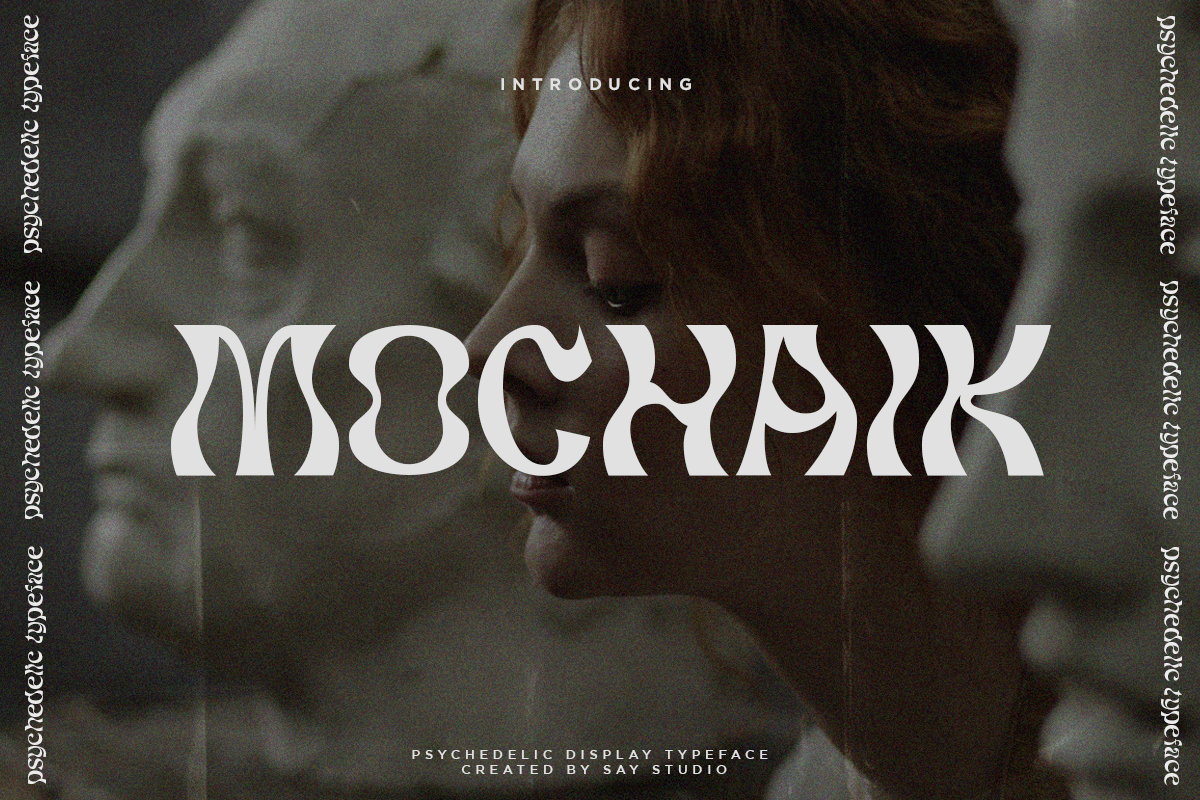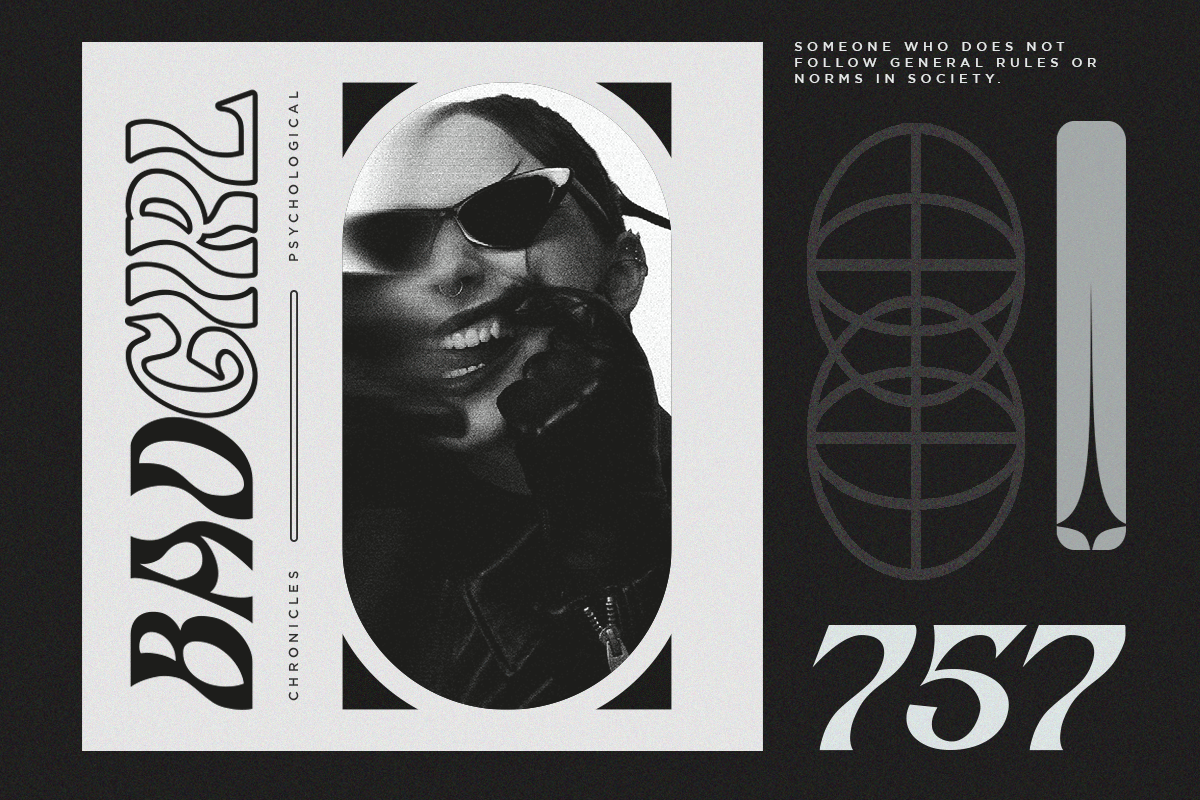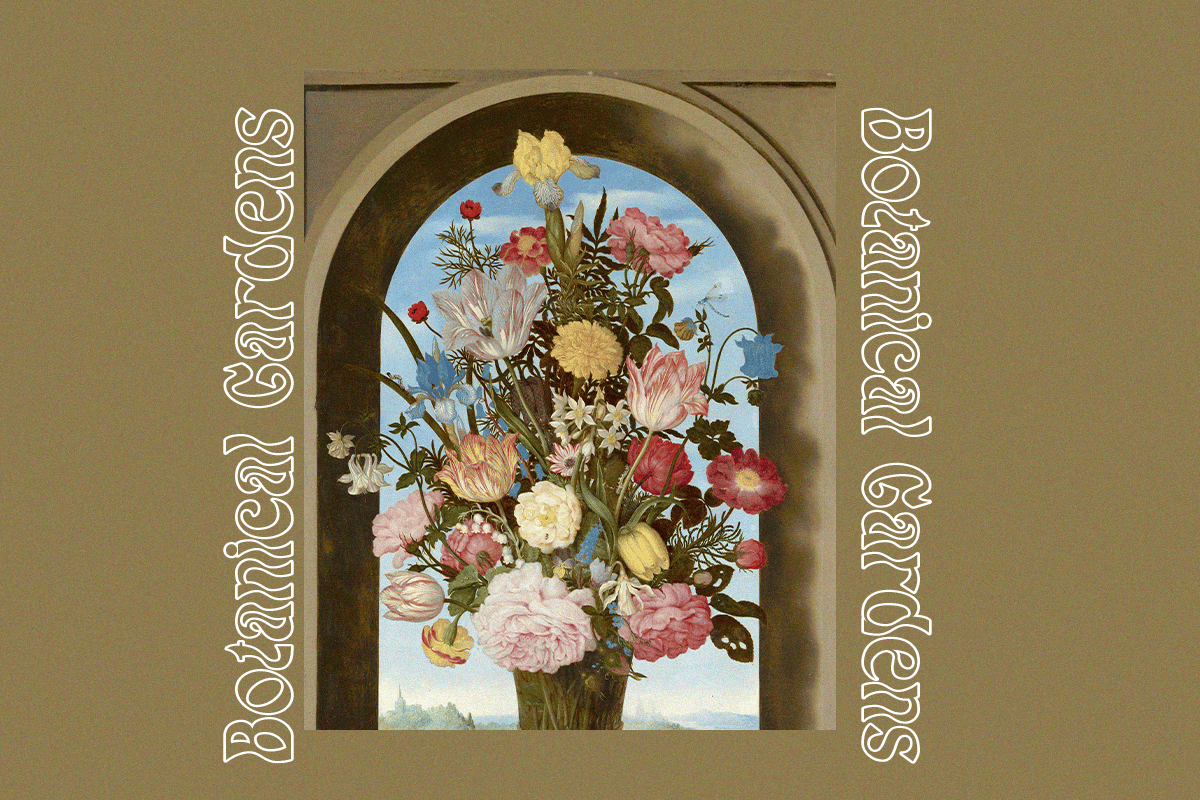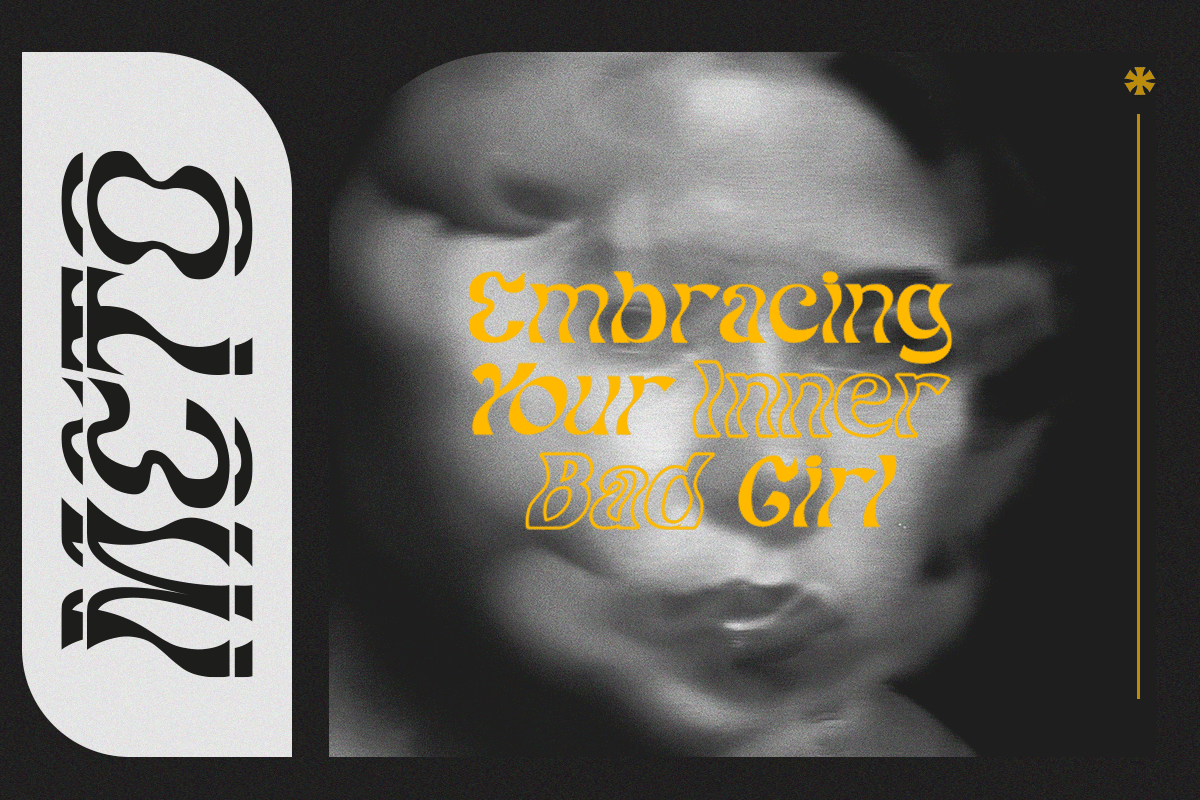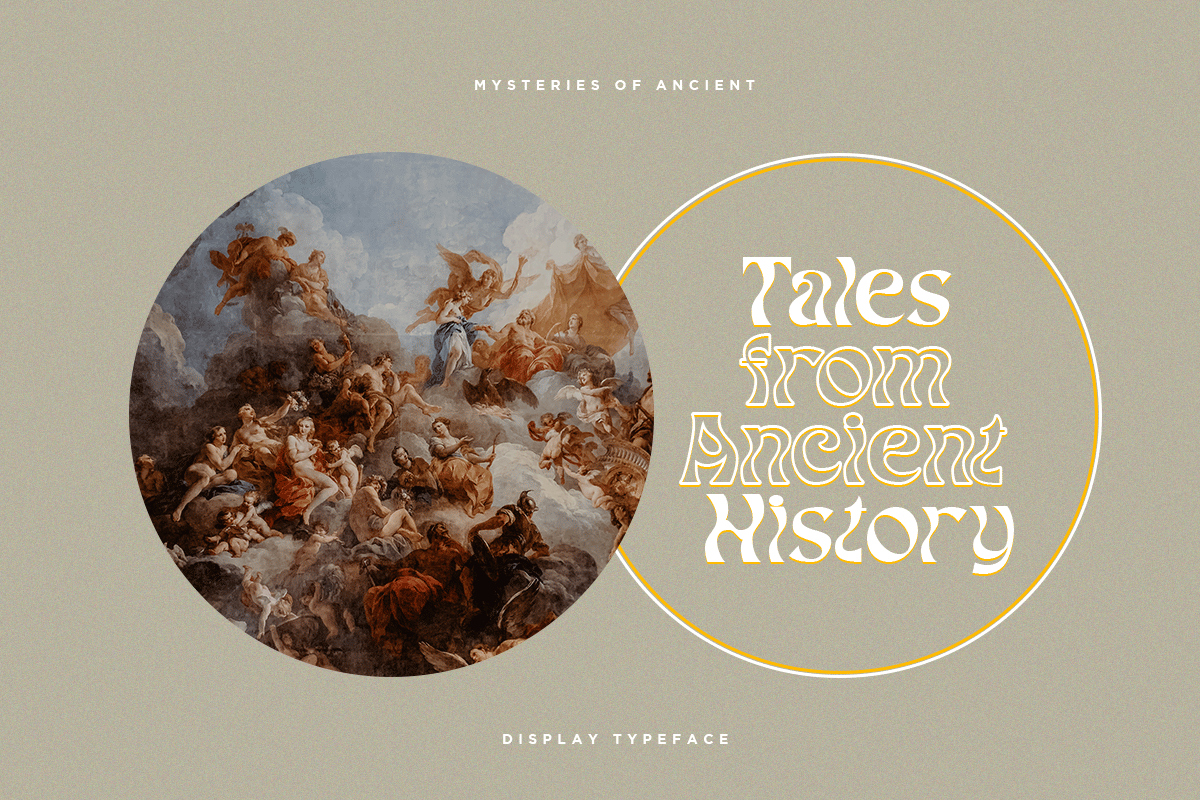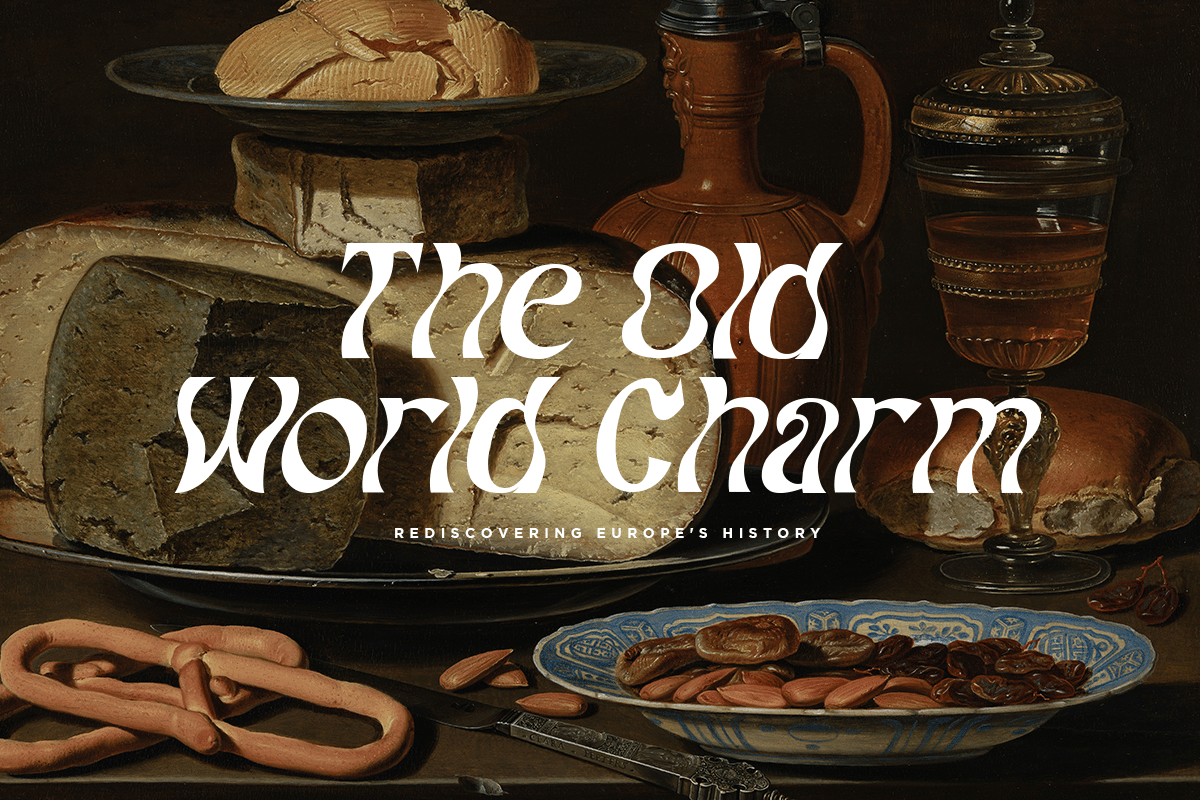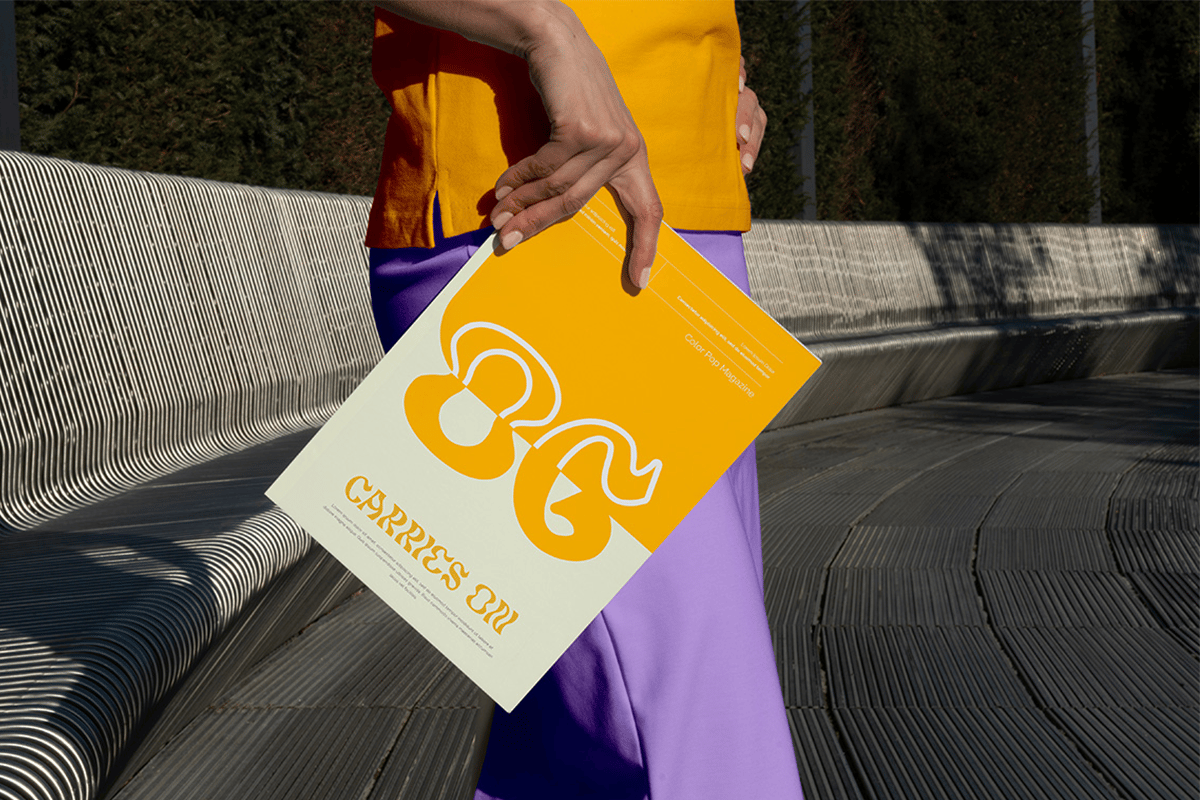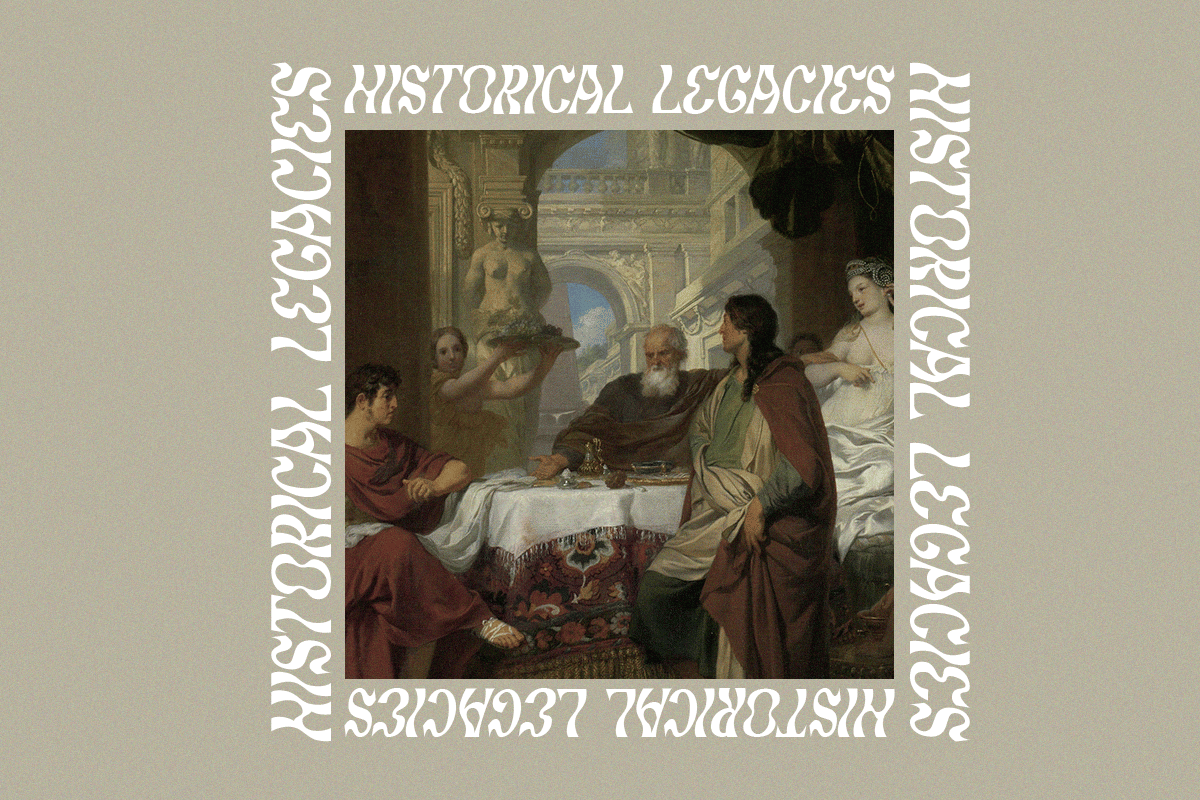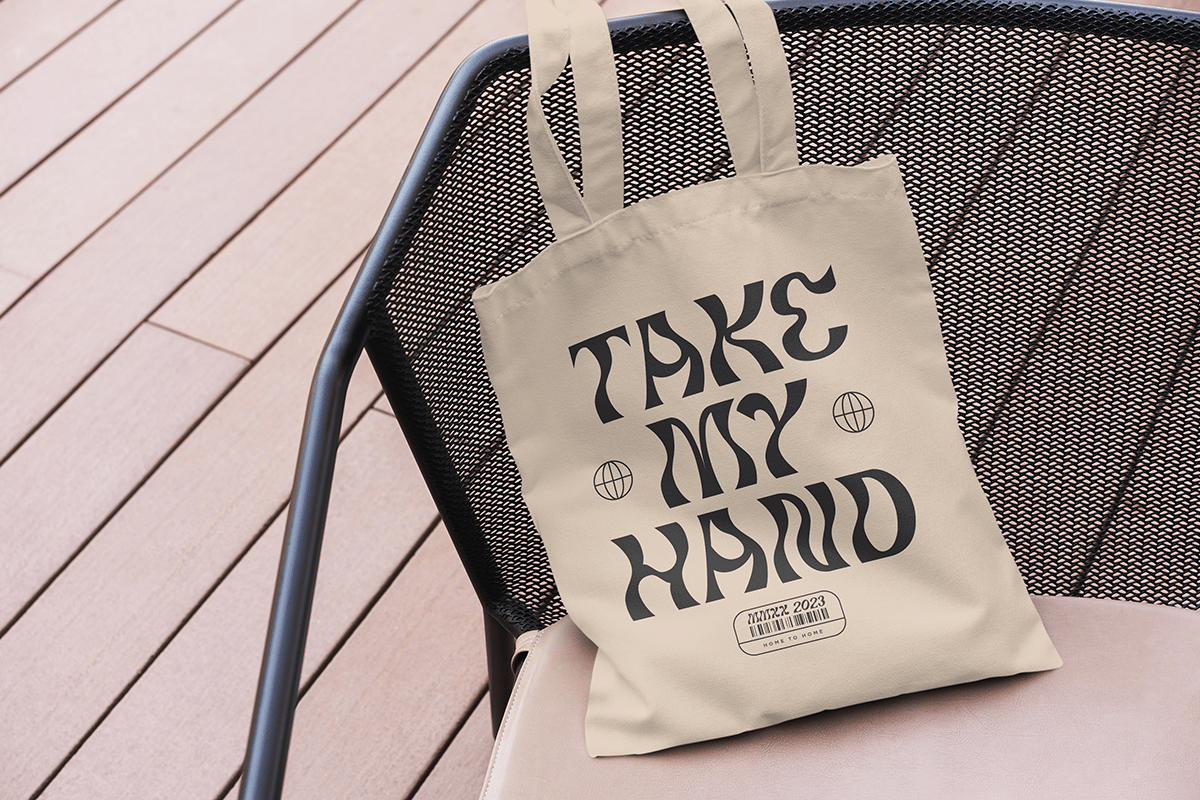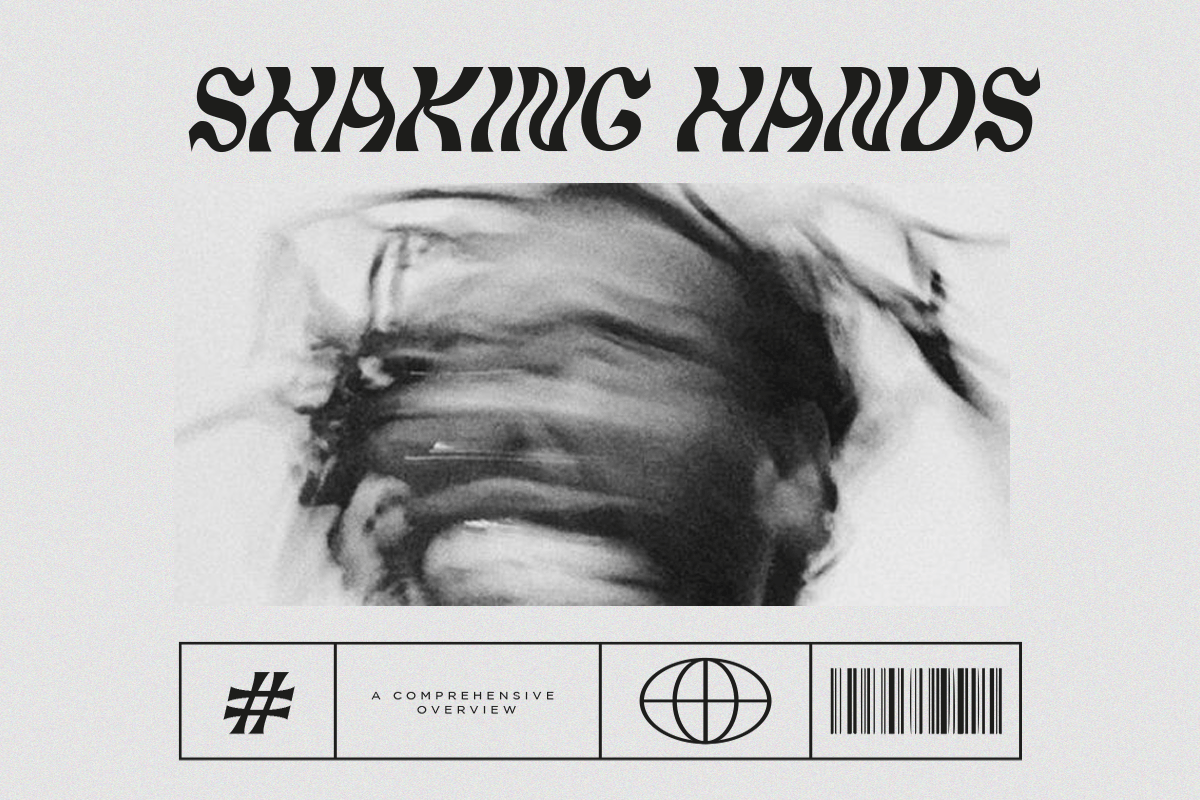
Mochaik – Modern Logo Font
Mochaik – Psychedelic Display Font
Here’s a lettering style that just might be exactly on your wavelength. Add just the right dose of vintage freak-a-delia to your retro graphics with this original psychedelic-style design. Great for music posters, album graphics, book titles, etc. Evoke a warpy, wavy, whimsical vibe that harks back to the carefree 1960s or early 1970s era with Sixties Flashback; it’s pure hippie, trippy fun!